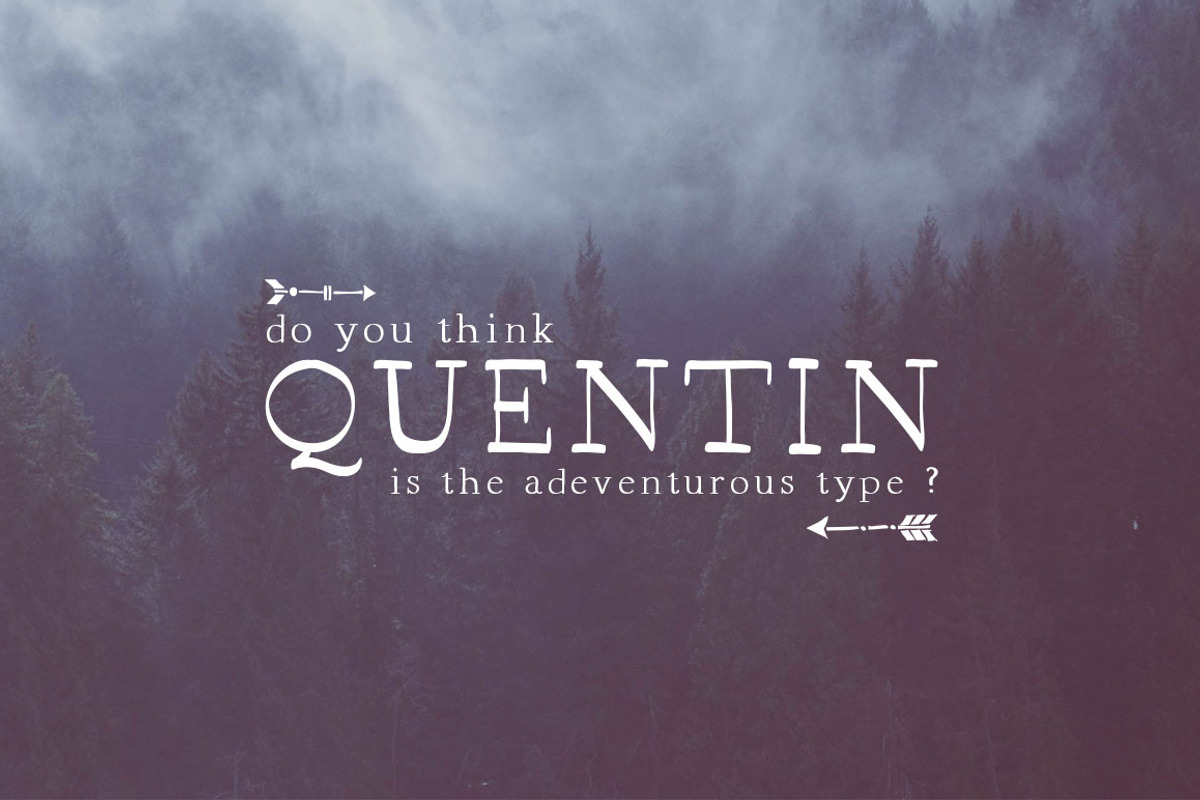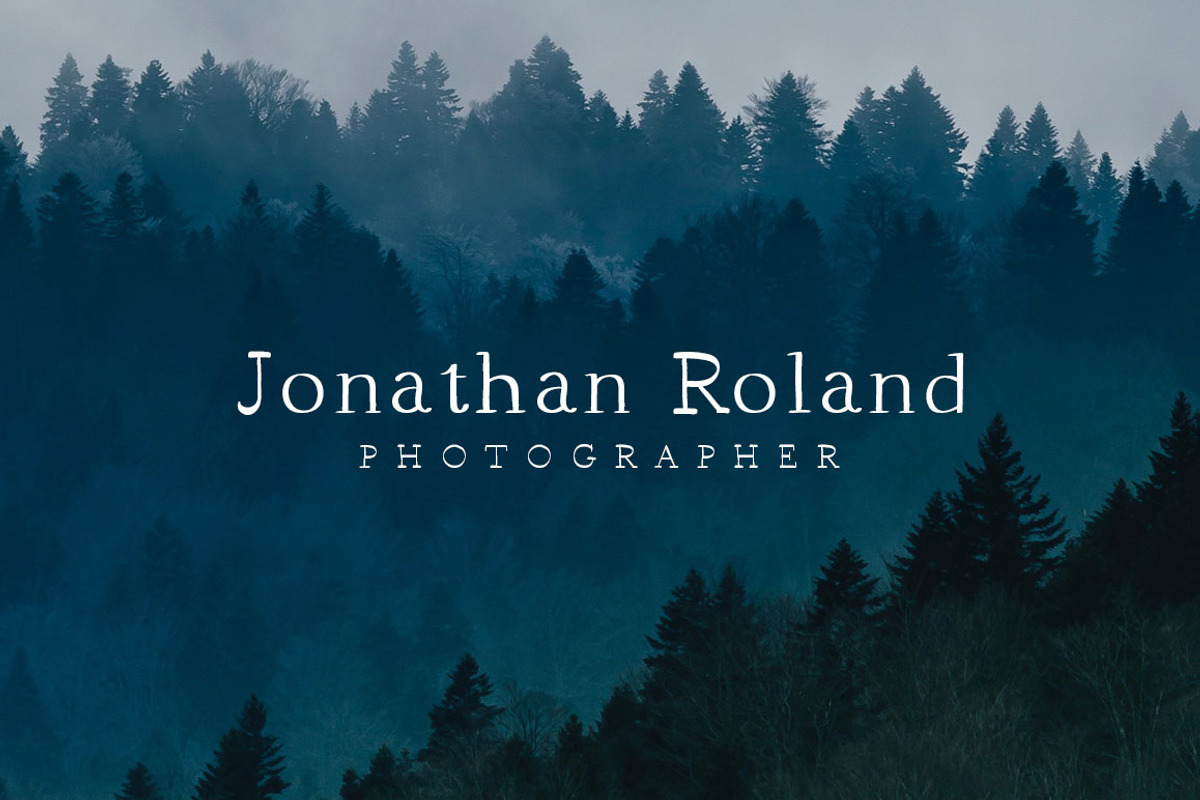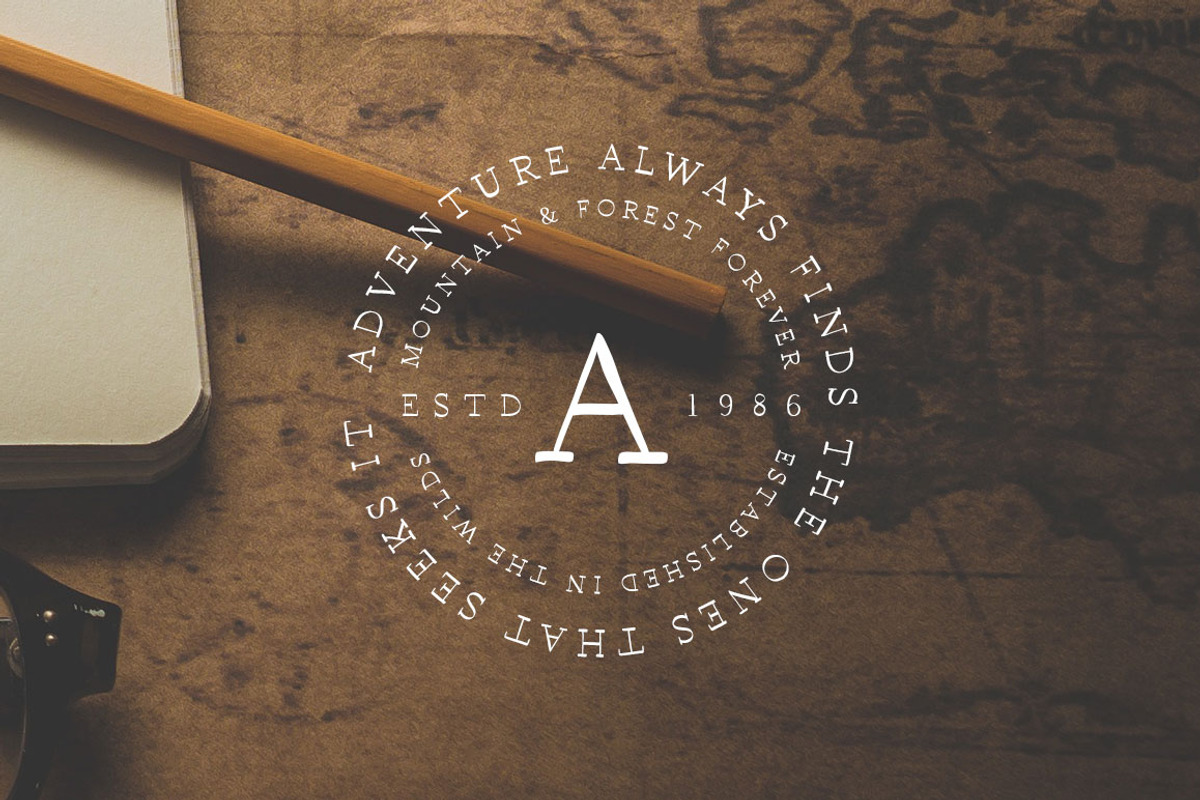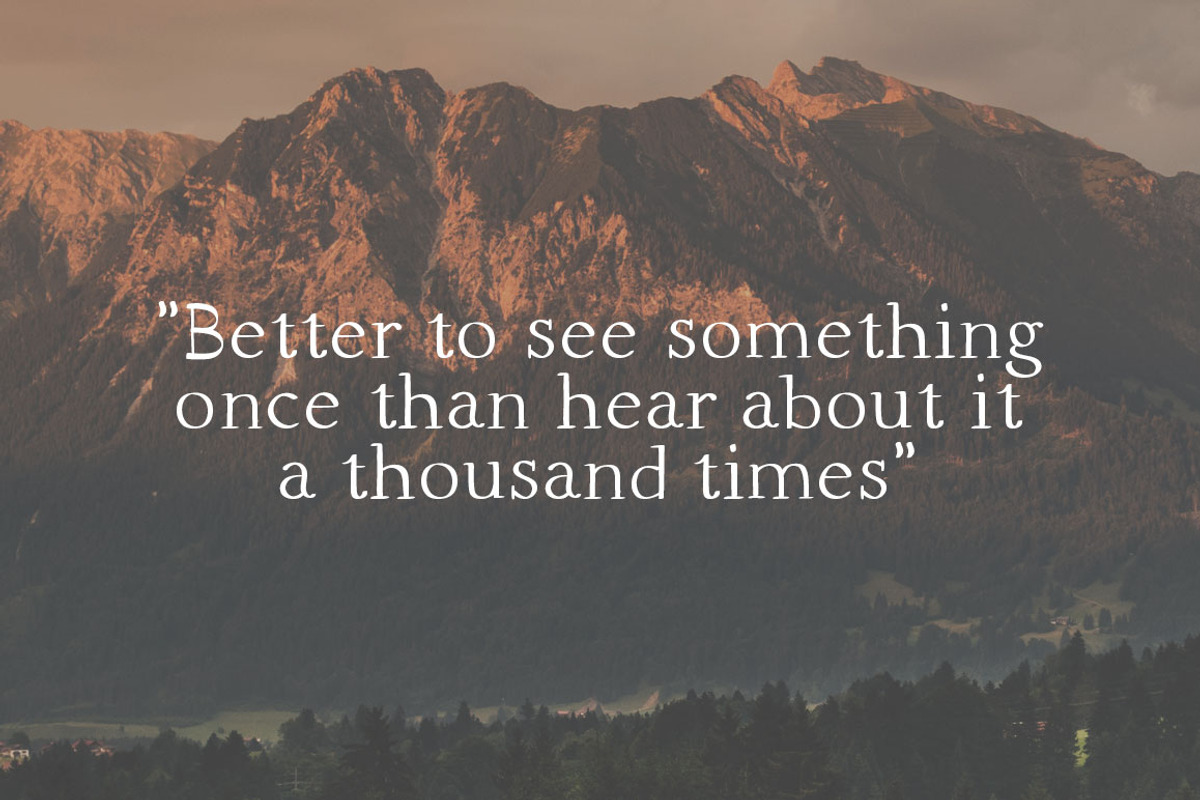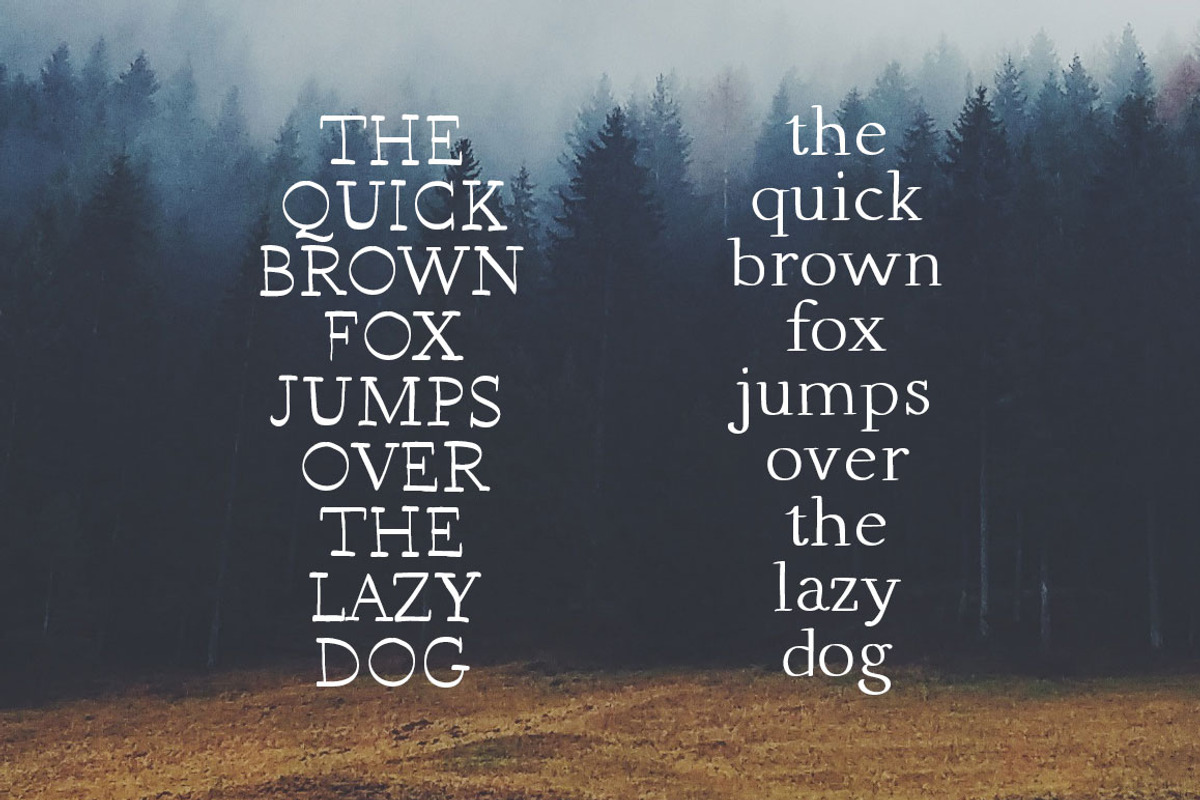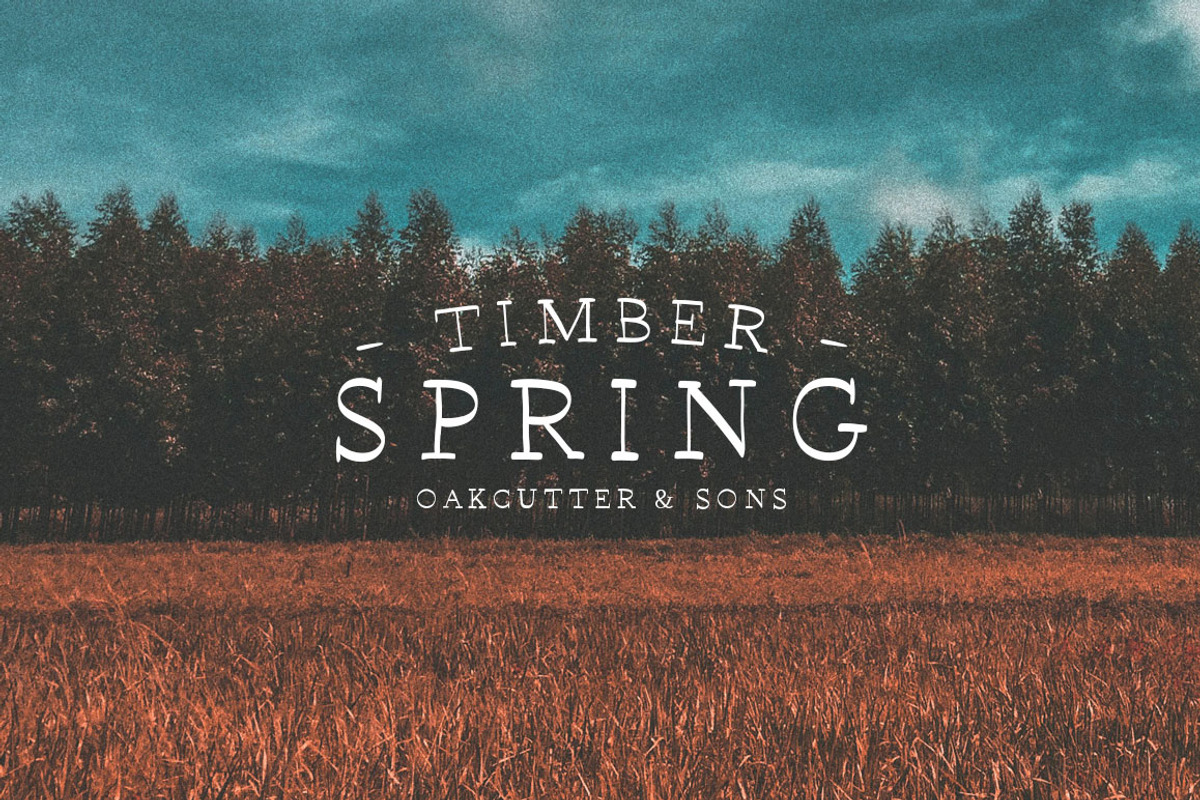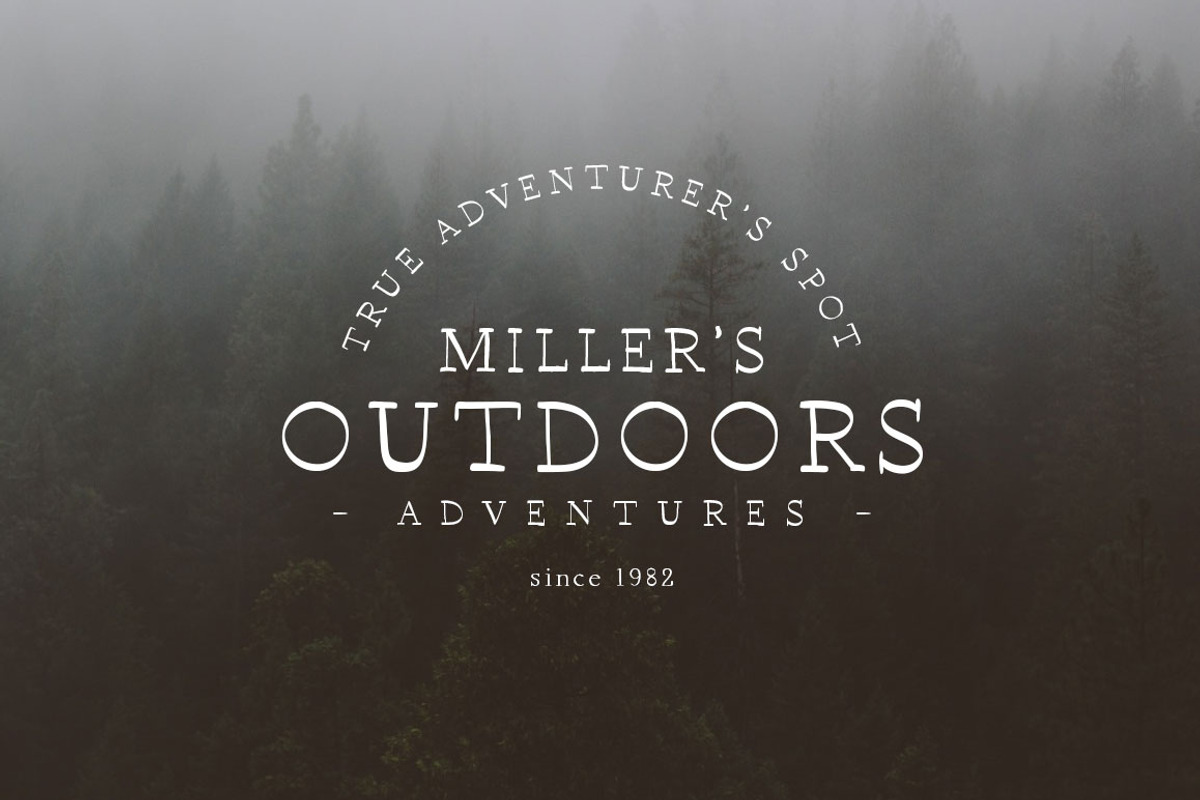
Quentin Serif Font
We are happy to introduce Quentint, a classic hand drawn serif font!
Quentin Serif includes uppercase and lowercase letters, numerals and punctuation and it's a great choice for titles, writing, logos and prints.
Quentin Serif features:
- Quentin Serif includes uppercase and lowercase letters, numerals and punctuation and it's a great choice for titles, writing, logos and prin
Why Quentin Serif Font is worth a look
Quentin Serif Font by Graphicdome fits naturally into Branding, posters, packaging, typography.